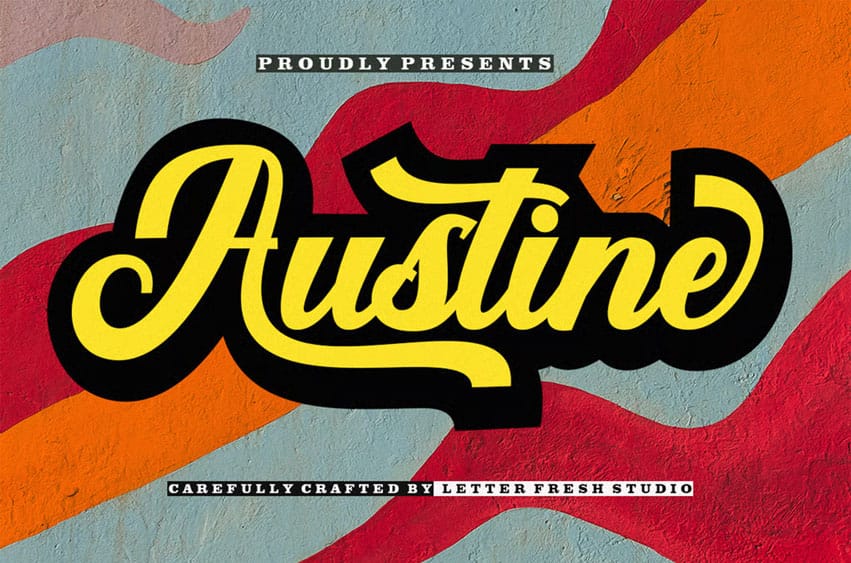
Austin Script Font is carefully crafted and balanced on a script typeface with a unique retro style. An extruded version is also available. You can use it for logos, titles, posters, greeting cards, wedding invitations, and more.
The alternate characters in this font are divided into several OpenType features such as Stylistic Alternate, Stylistic Set, and Ligature. OpenType features can be accessed using OpenType programs such as Adobe Illustrator, Adobe Photoshop, and Adobe InDesign.